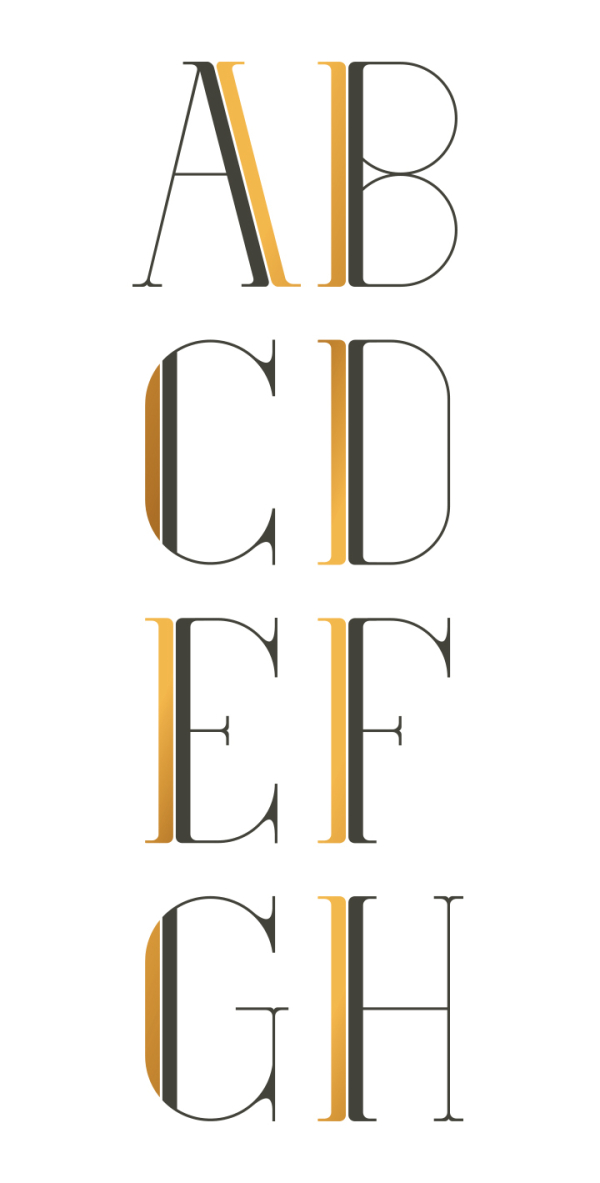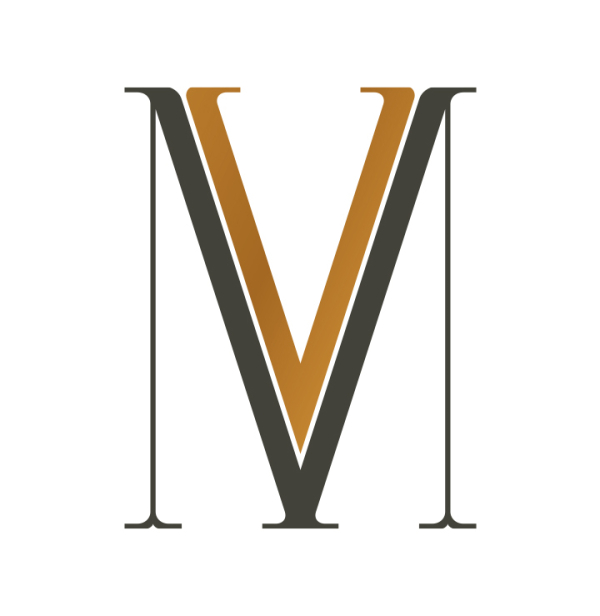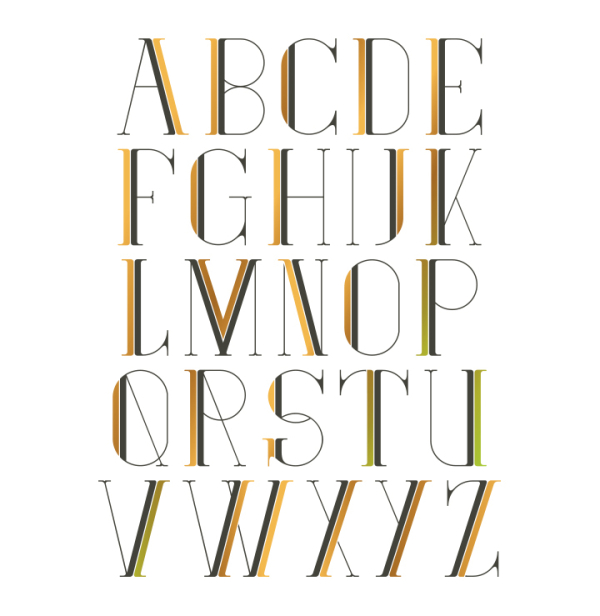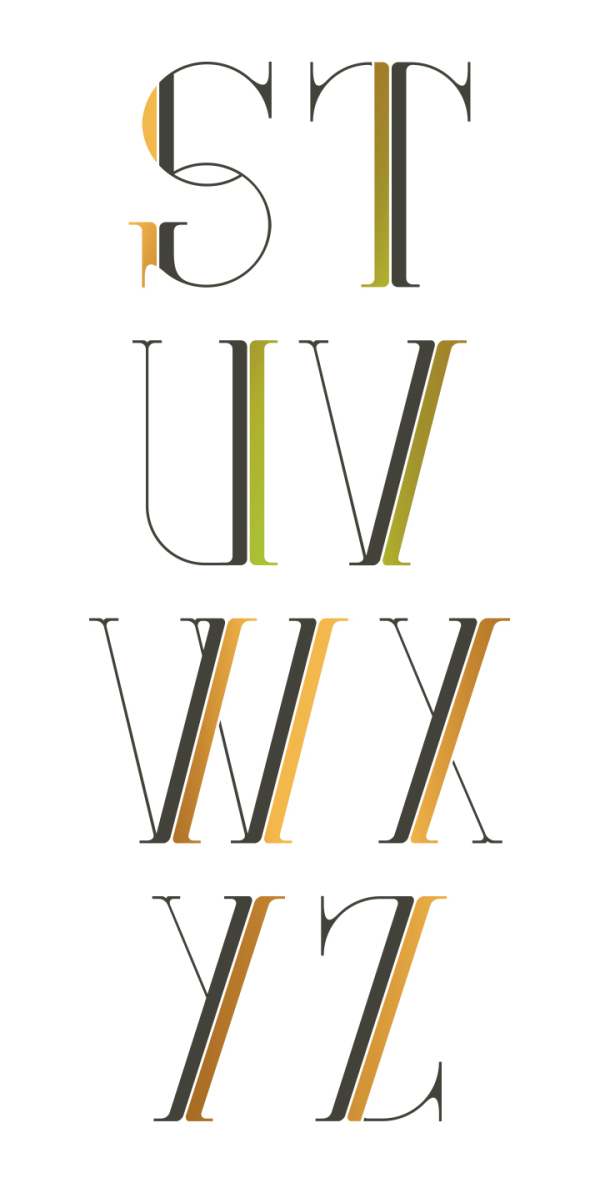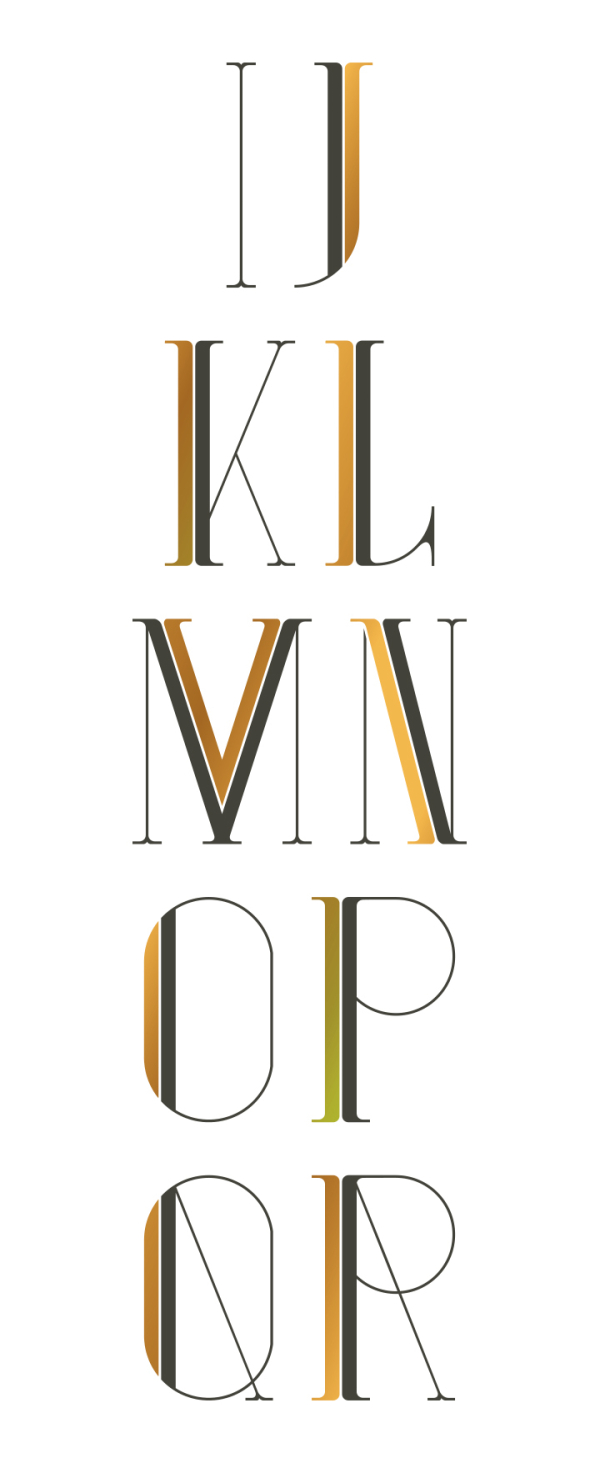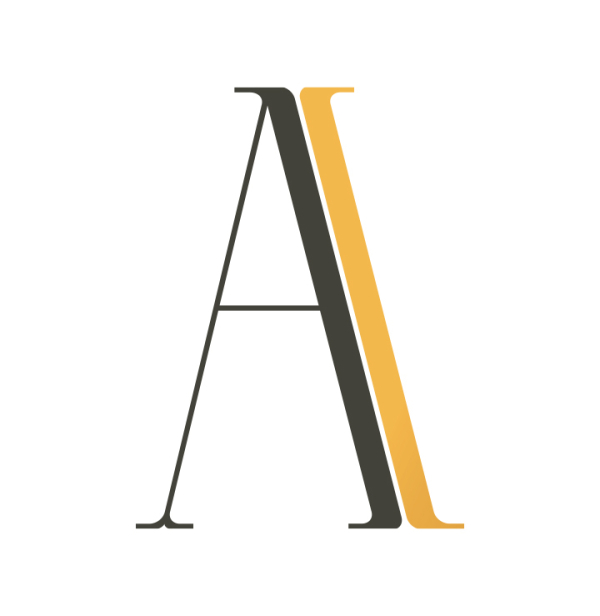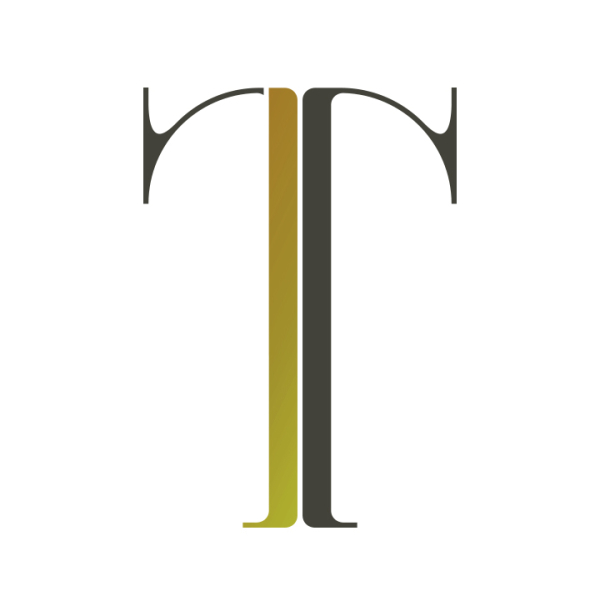
Mint Julep
Typographie inspiré du mouvement Art Déco.
Typography inspired by the Art Deco movement.
Designer: Patrick Seymour
Publisher: Patrick Seymour